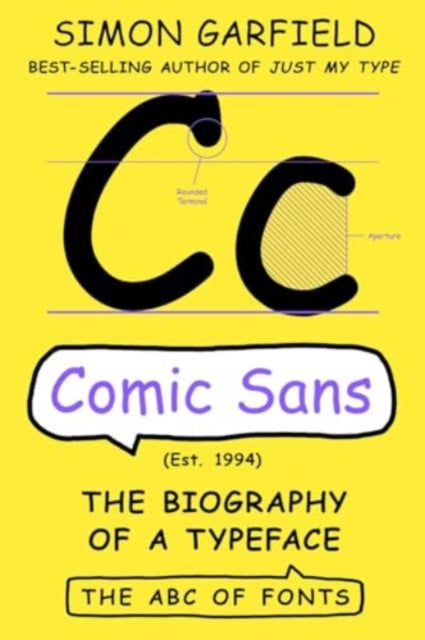
Simon Garfield
The Comic Sans: The Biography of a Typeface
A compact and charming history of the font we love to hate by the New York Times best-selling author of Just My Type.